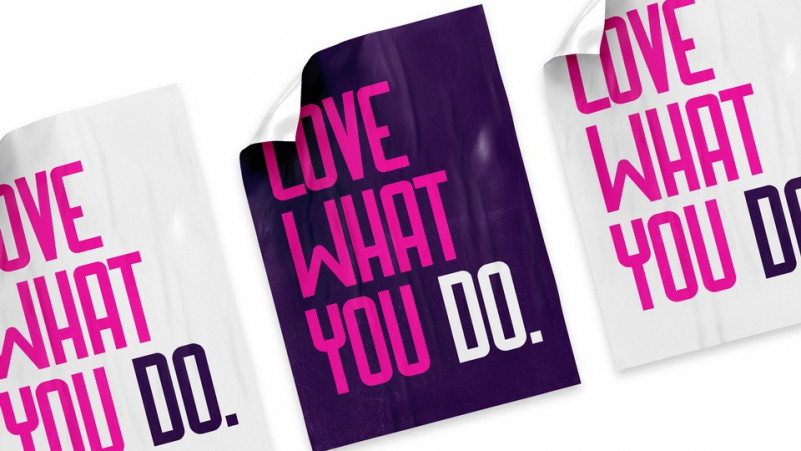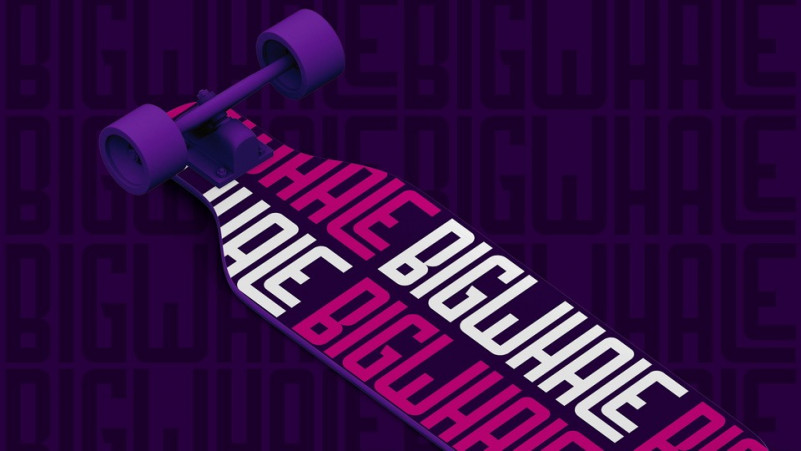
Bigwhale Display Font
This is a unique & modern Sans-Serif display typeface specially designed for headlines, big text, branding, logotypes & display usage. This font is perfect for use in titles with a set of numbers, basic symbols and punctuation, for the letter W has an alternative character. This font also has some bandages for some sets of letters for further customization of your designs.